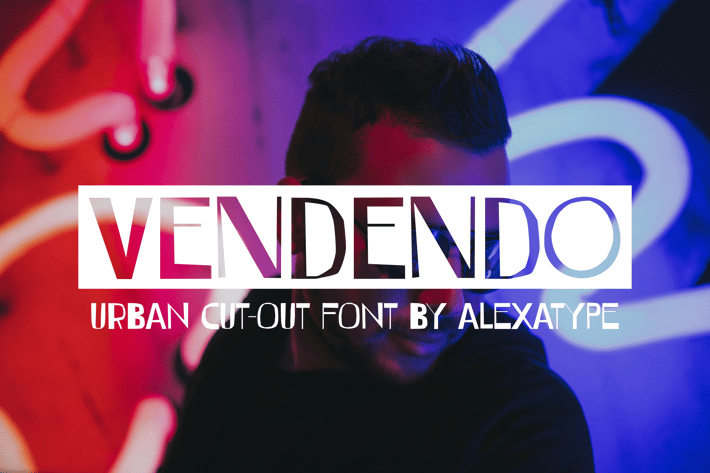
VENDENDO - Urban Cut Out Font
Vendendo - Modern Urban Font
VENDENDO is a modern urban display font that fuses glitchy rhythm with editorial boldness. Each letterform features dynamic cut-outs and sliced transitions, mimicking the look of collage culture and underground zines. Its condensed structure and irregular breaks give it a visual tension that’s perfect for posters, streetwear branding, music drops, or youth-centered media. Designed for attention, Vendendo hits with contrast and grit — a bold font for bold expression.
If your brand speaks to rebels, creators, or trendsetters, VENDENDO fits the vibe. It’s loud enough for concert visuals, sharp enough for fashion campaigns, and versatile enough for digital ads targeting Gen Z. From urban fashion labels to political zines and nightlife promotions, Vendendo brings aesthetic disruption to the design table.
Key Features:
Urban Edge with Artistic Flair: Cut-out forms and sharp angles capture DIY and underground print culture.
Perfect for Bold, Fast-Paced Visuals: Use it on streetwear, music releases, protest graphics, gallery flyers, or creative packs.
Solves a Common Visual Problem: Standard bold fonts lack attitude, Vendendo injects style, asymmetry, and movement into every line of text.